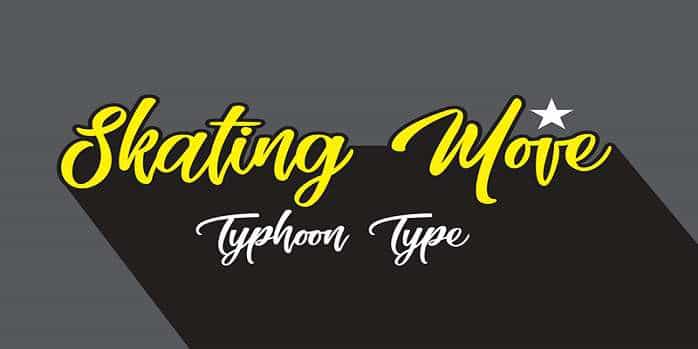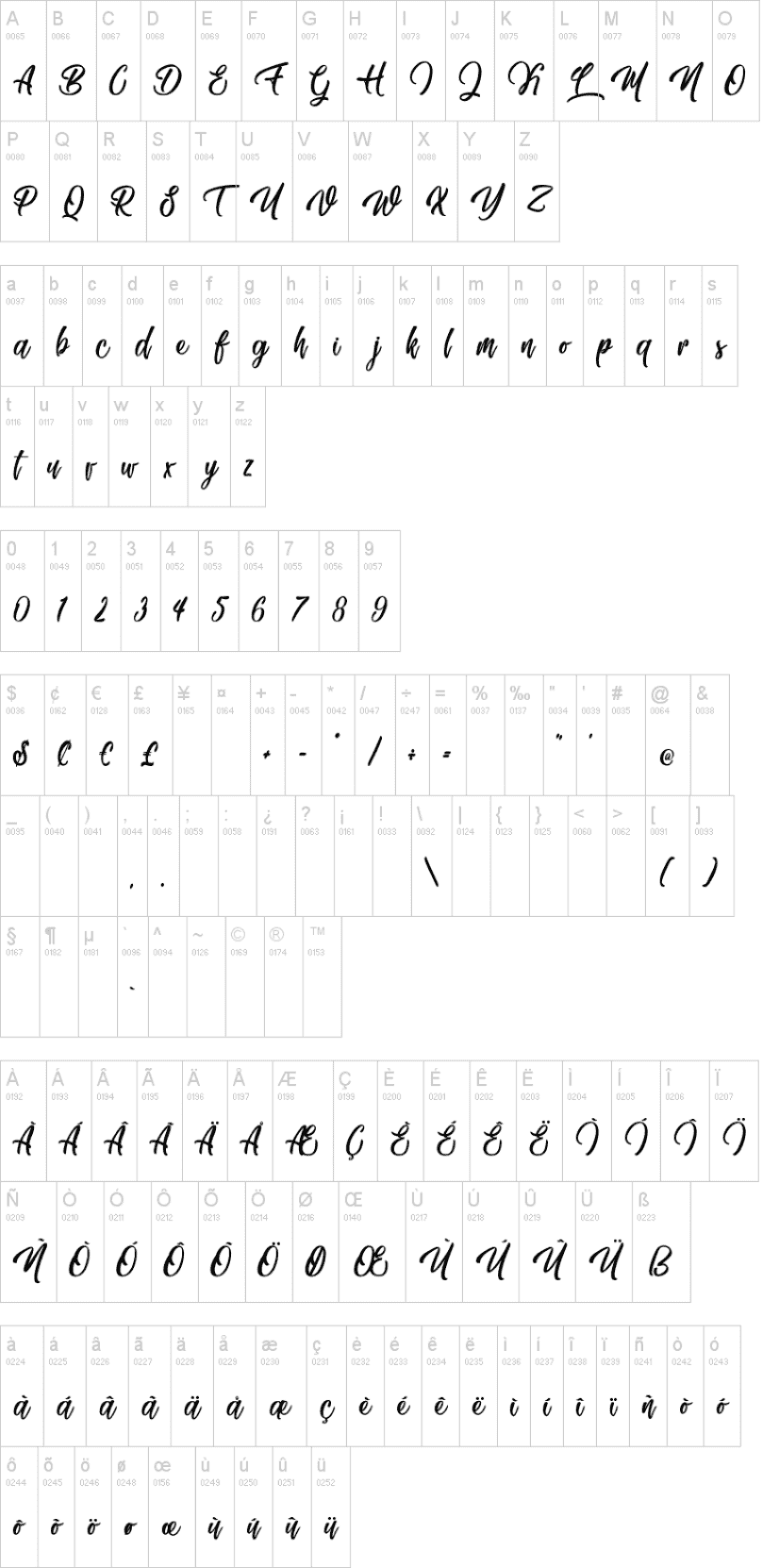
Skating Move is one of the skater type fonts and it has an edgy street appeal feel to it. It is perfect for graffiti font and a number of other designs that can be created using this kind of font.